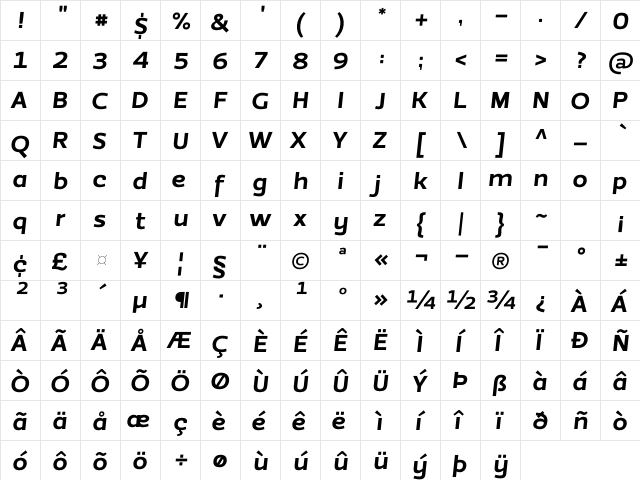
EzzoBlackItalic Regular Font Preview
EzzoBlackItalic Regular
EzzoBlackItalic Regular Font Details
| Foundry | Dino dos Santos _DSType |
Design Context for EzzoBlackItalic Typeface
EzzoBlackItalic is a composed and adaptable typeface that performs quietly and consistently across a wide range of design contexts. Its italic angle brings a sense of urgency and motion to the letterforms.
Pro Tip: Try EzzoBlackItalic for annotation and caption copy alongside an upright companion — the contrast in angle creates a dynamic but ordered typographic system.